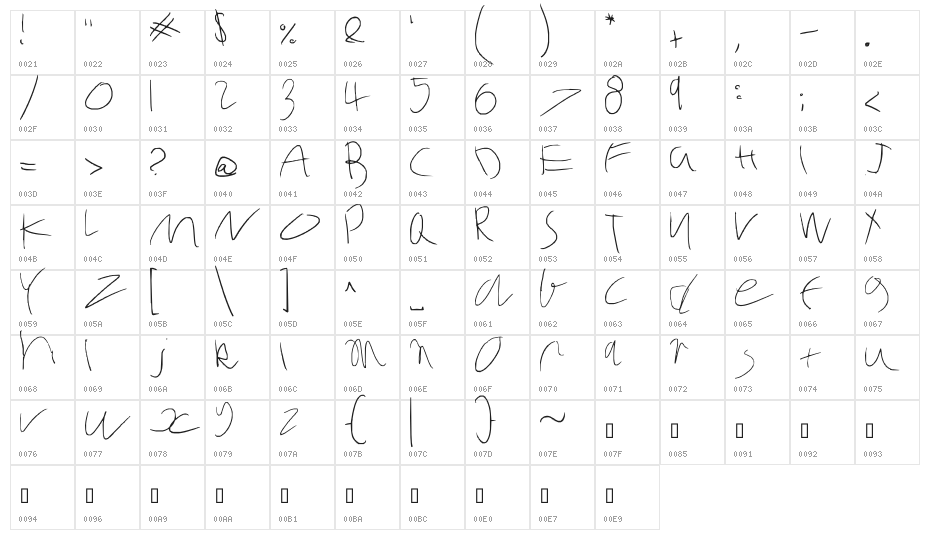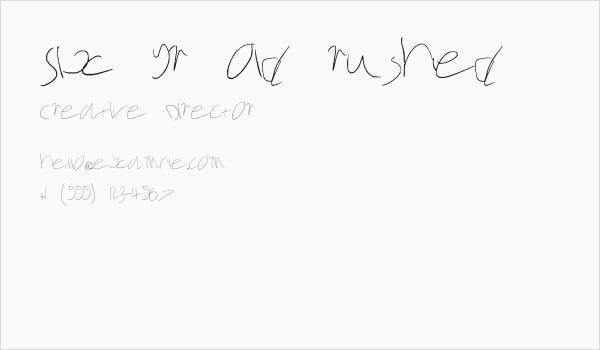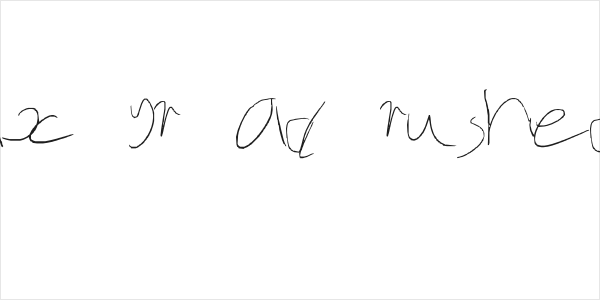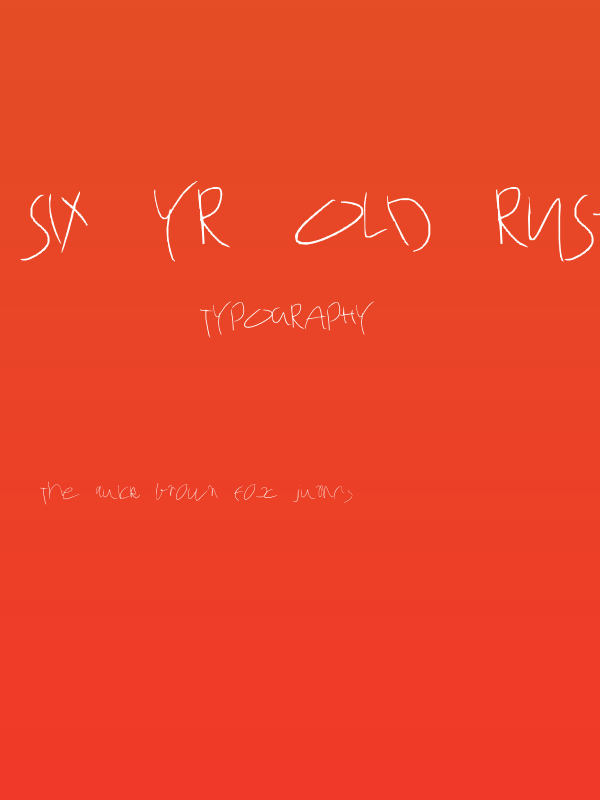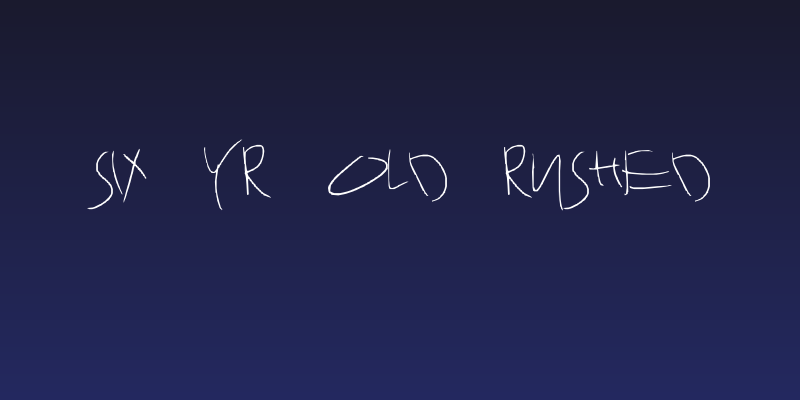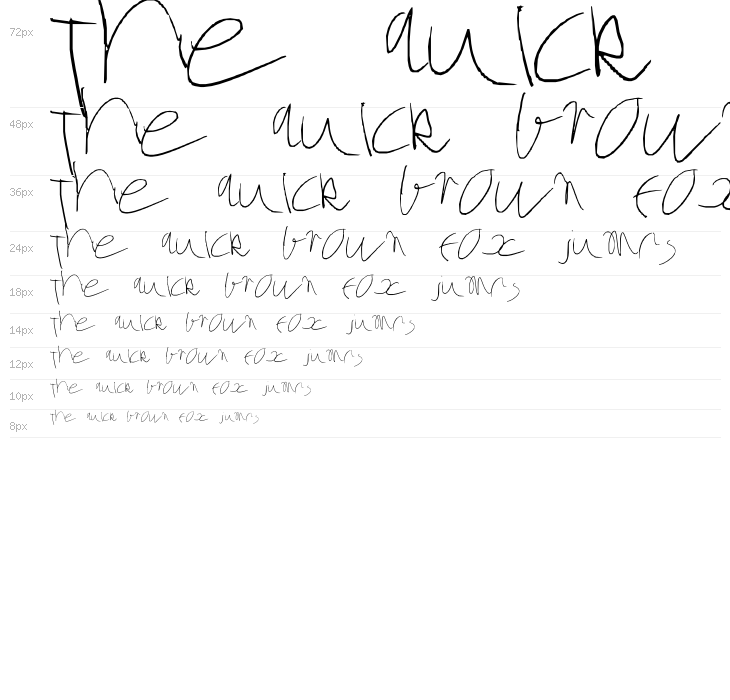
Six yr old rushed Font
Six yr old rushed Description
This font captures the essence of youthful spontaneity and creativity, resembling the handwriting of a child. The letters are uneven and playful, with a sense of movement and energy. The strokes are thin and vary in direction, giving it an informal and whimsical appearance. The characters are loosely spaced, adding to the casual and carefree style. This font is perfect for projects that aim to evoke a sense of innocence, playfulness, or a personal touch. It is not suitable for formal documents but excels in creative and artistic contexts.
| Use Case | Creative projects, informal communications, artistic designs. |
| Proposed Projects | Ideal for children's books, playful invitations, greeting cards, and educational materials. |